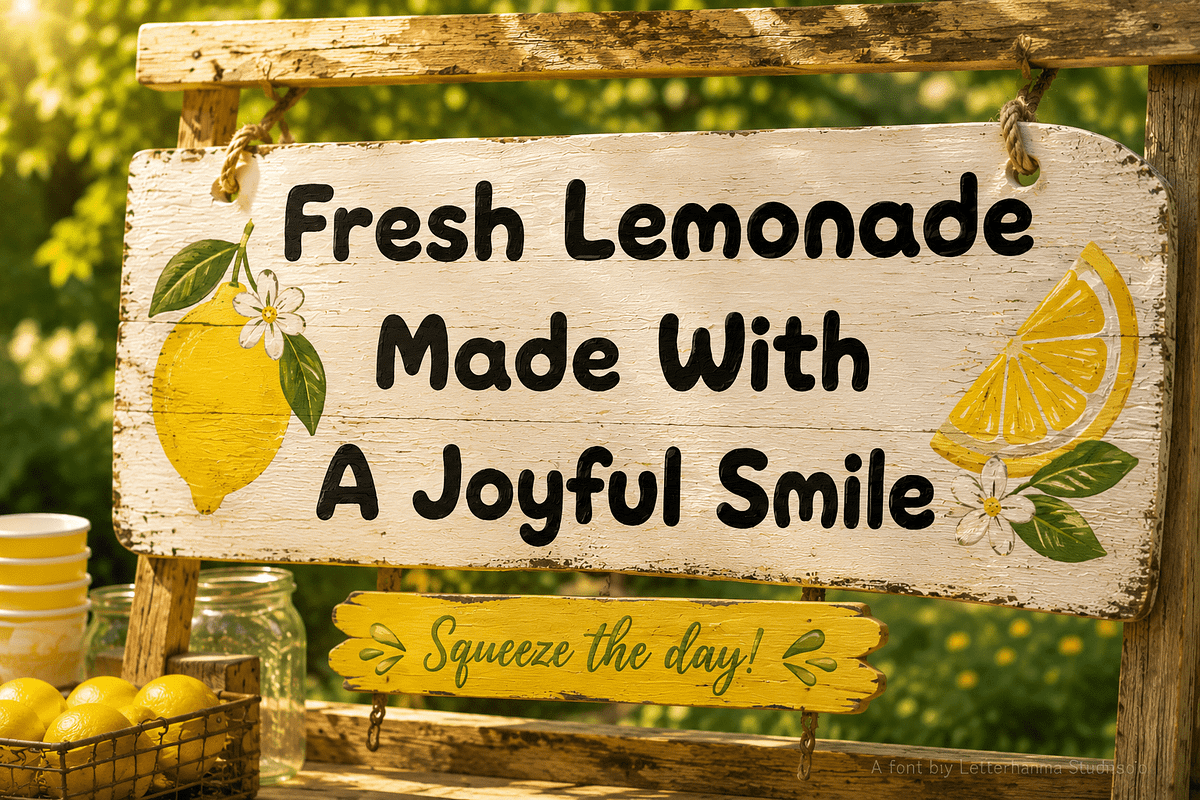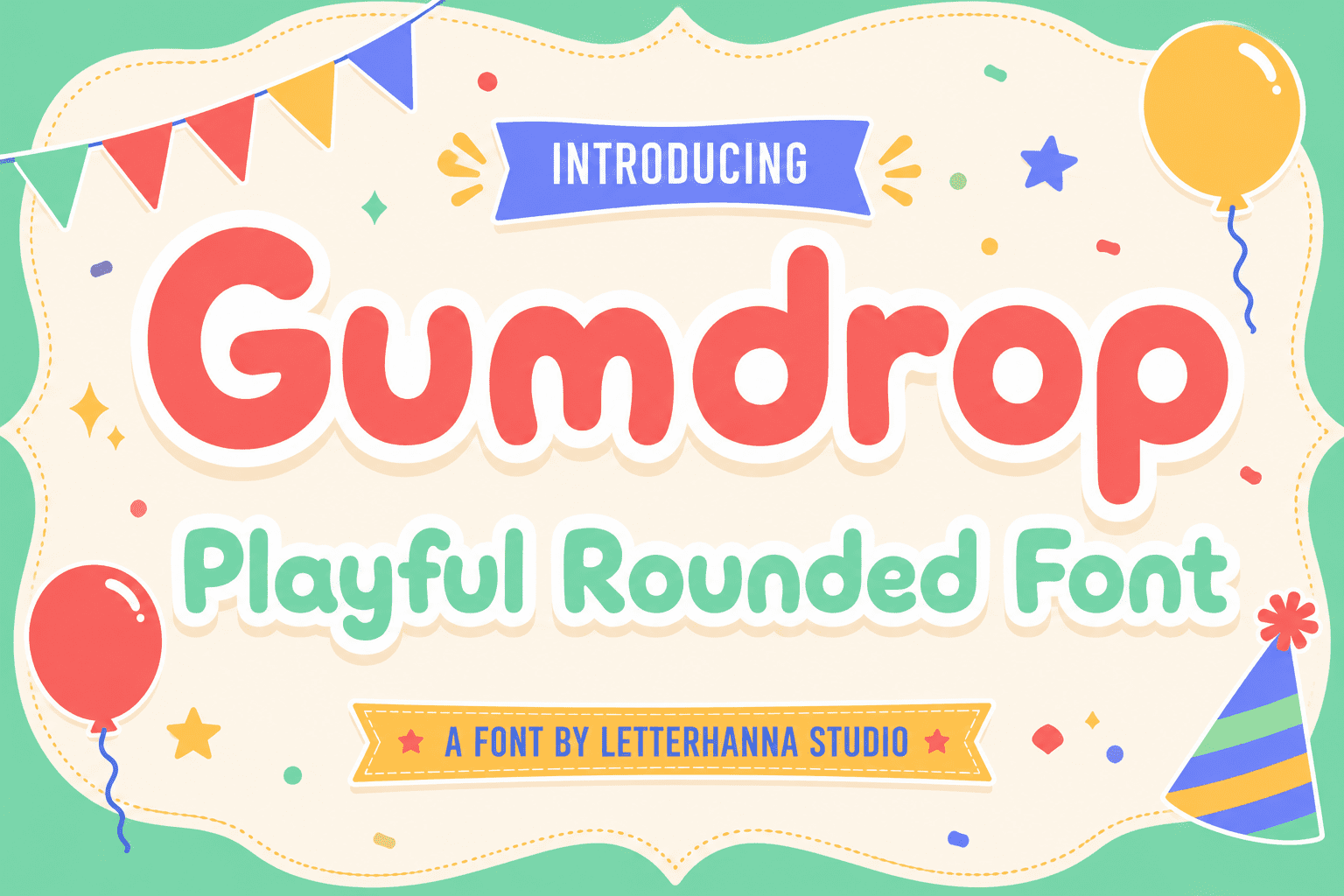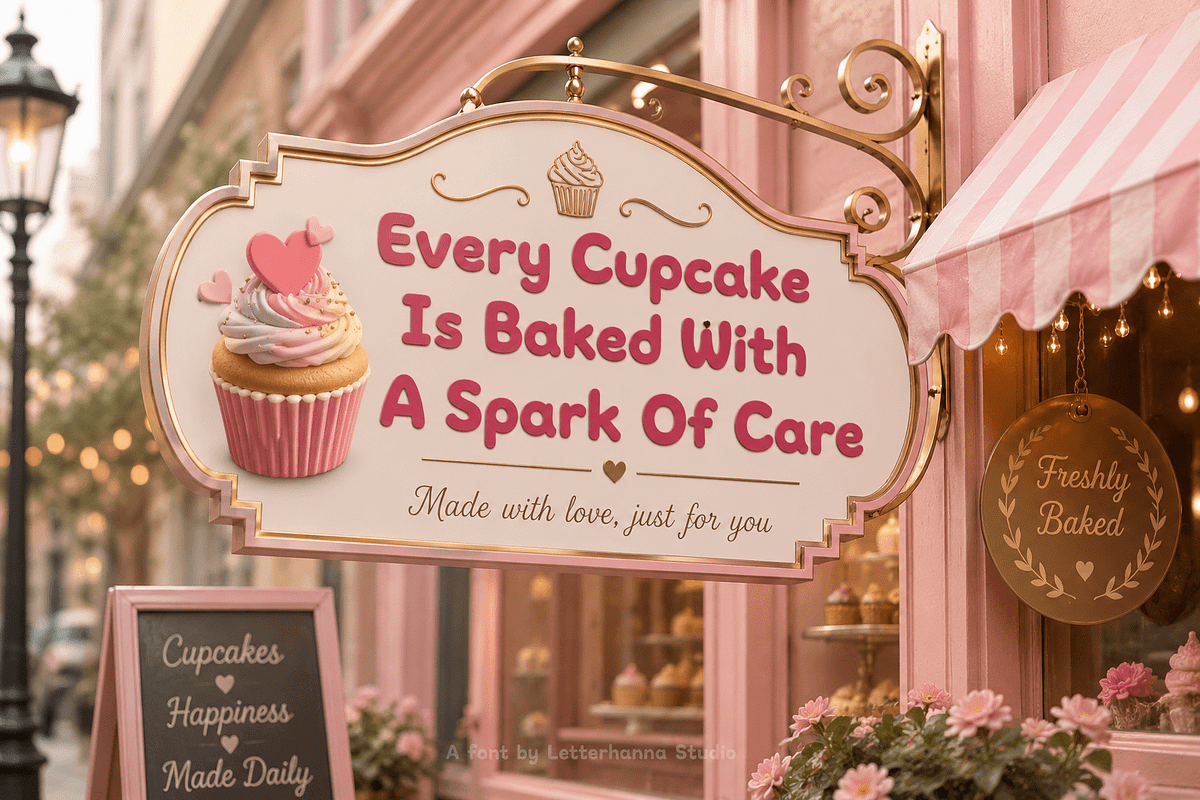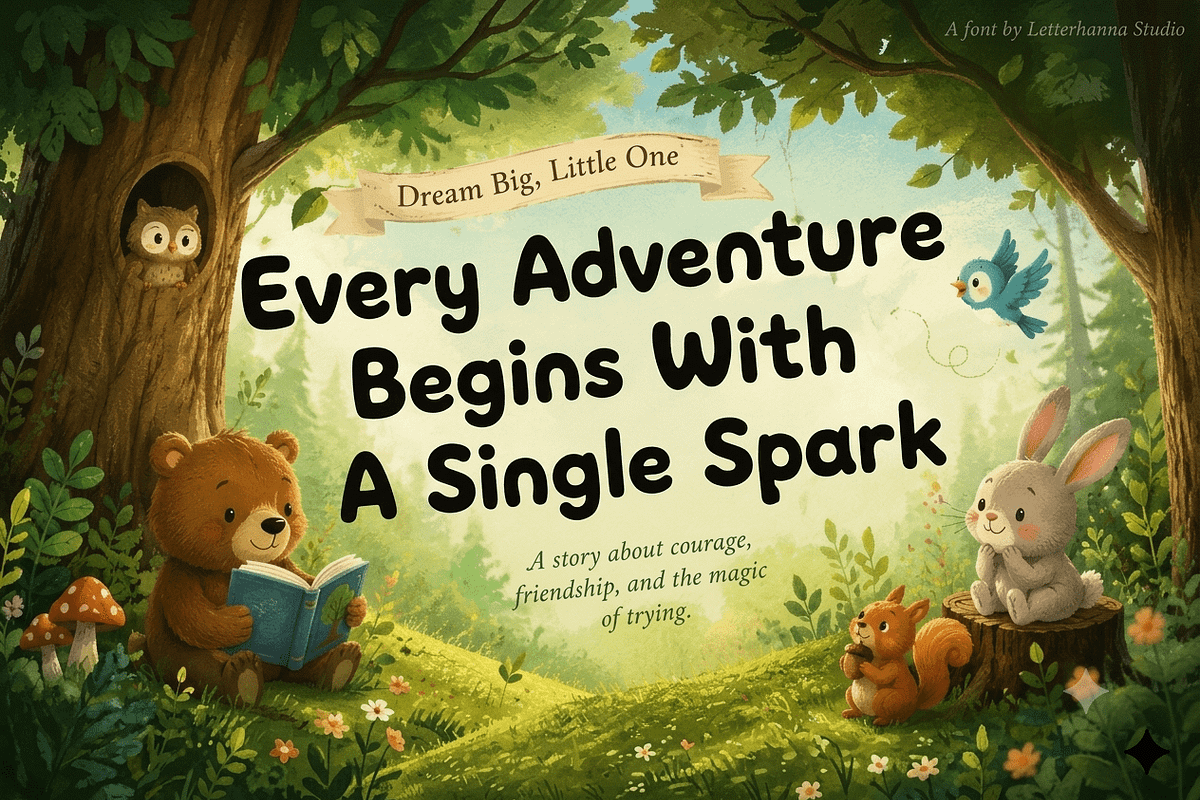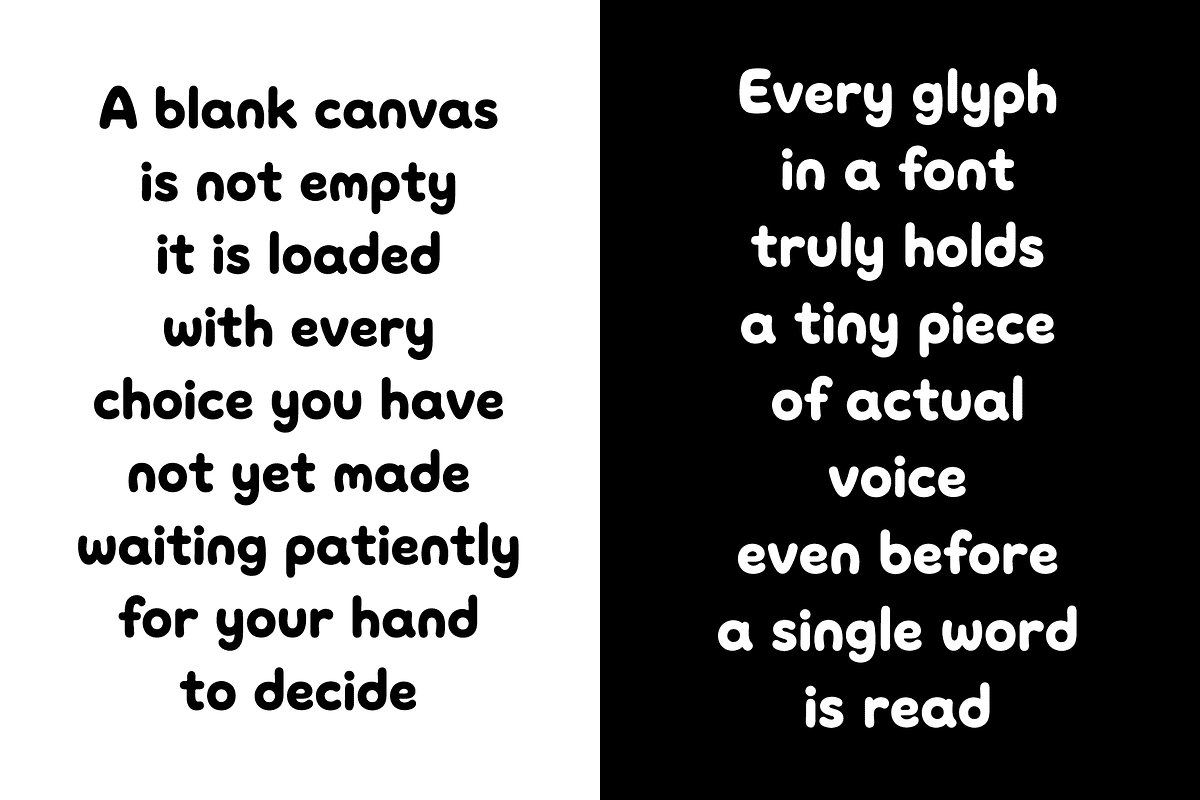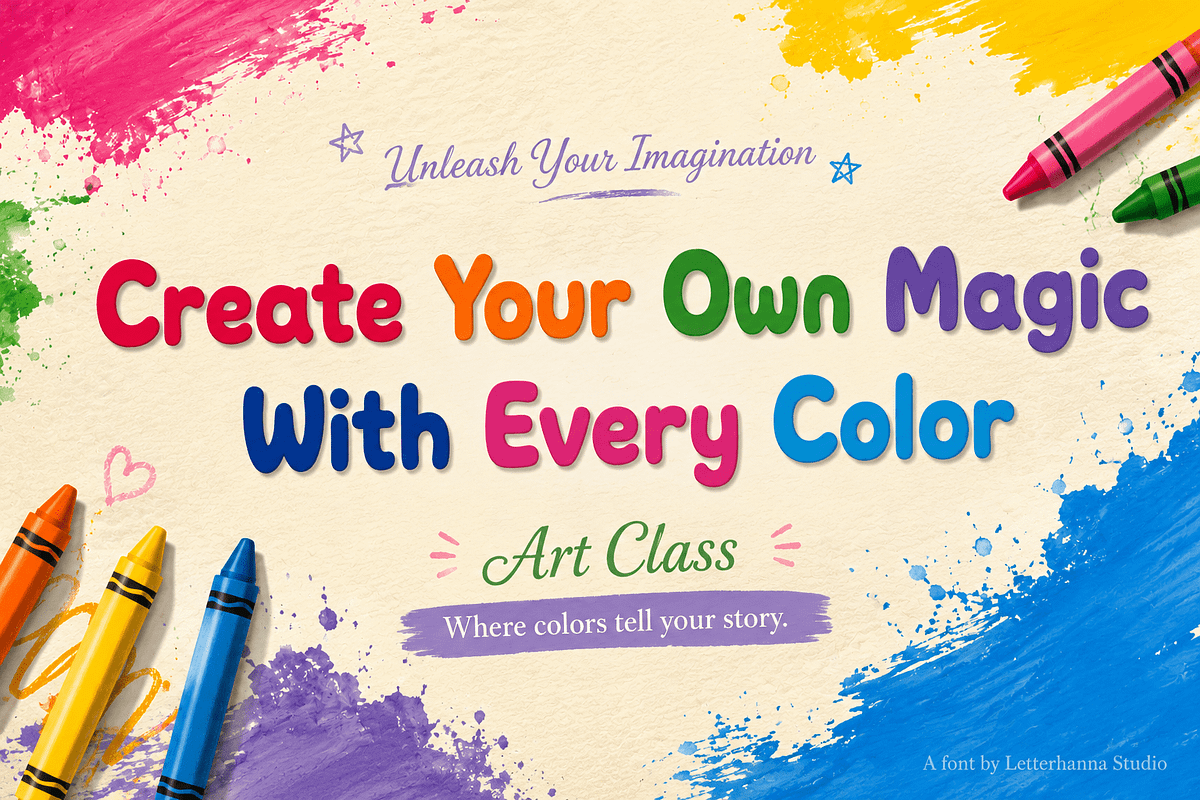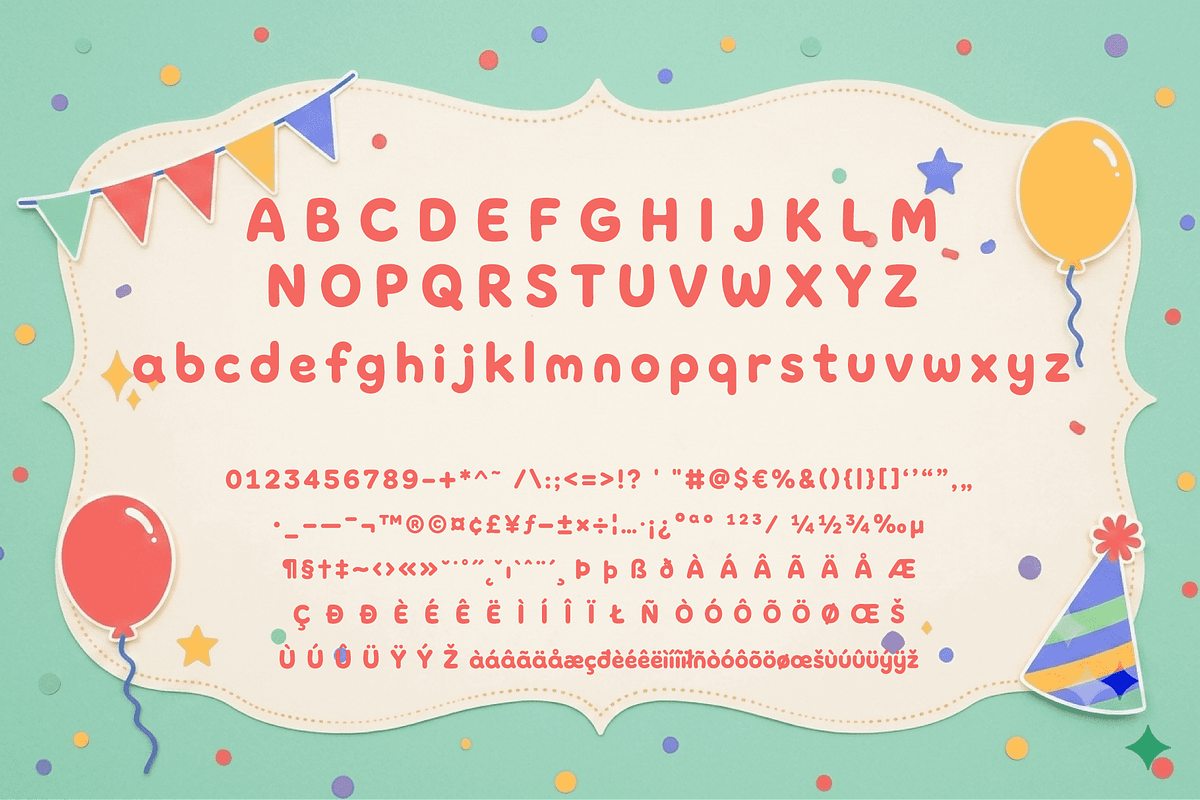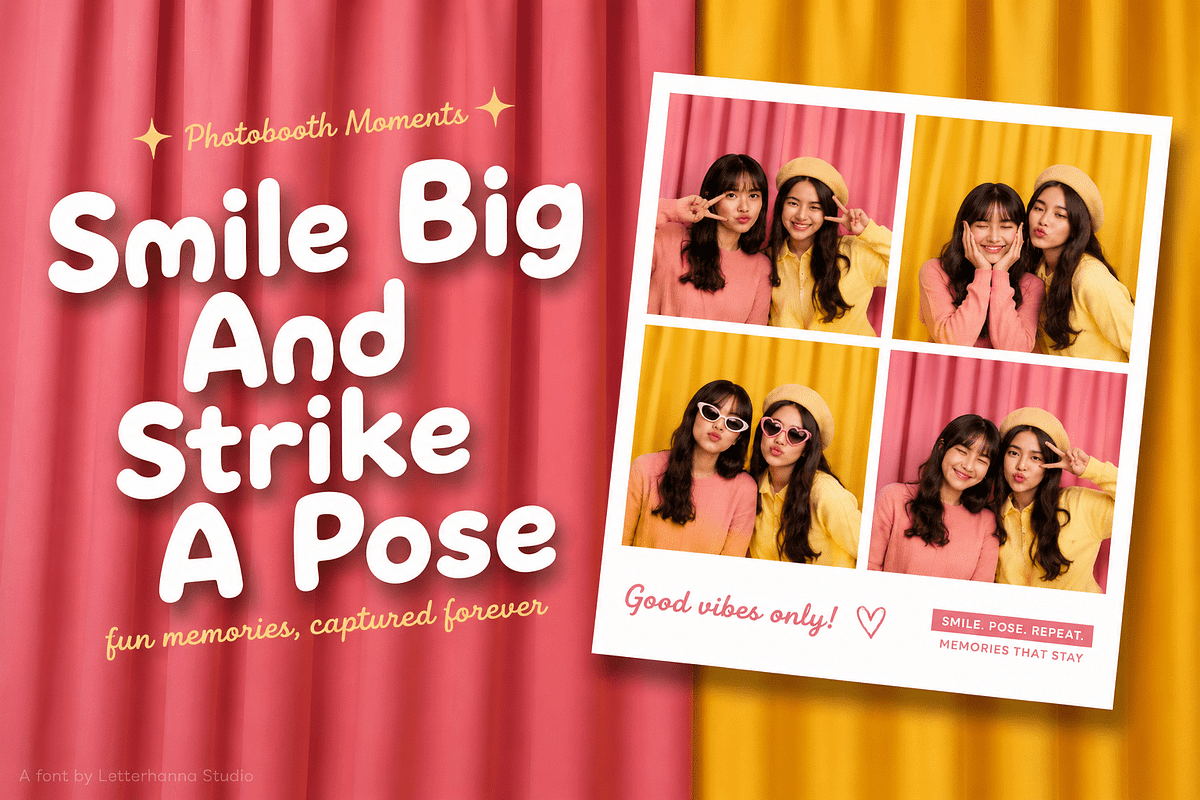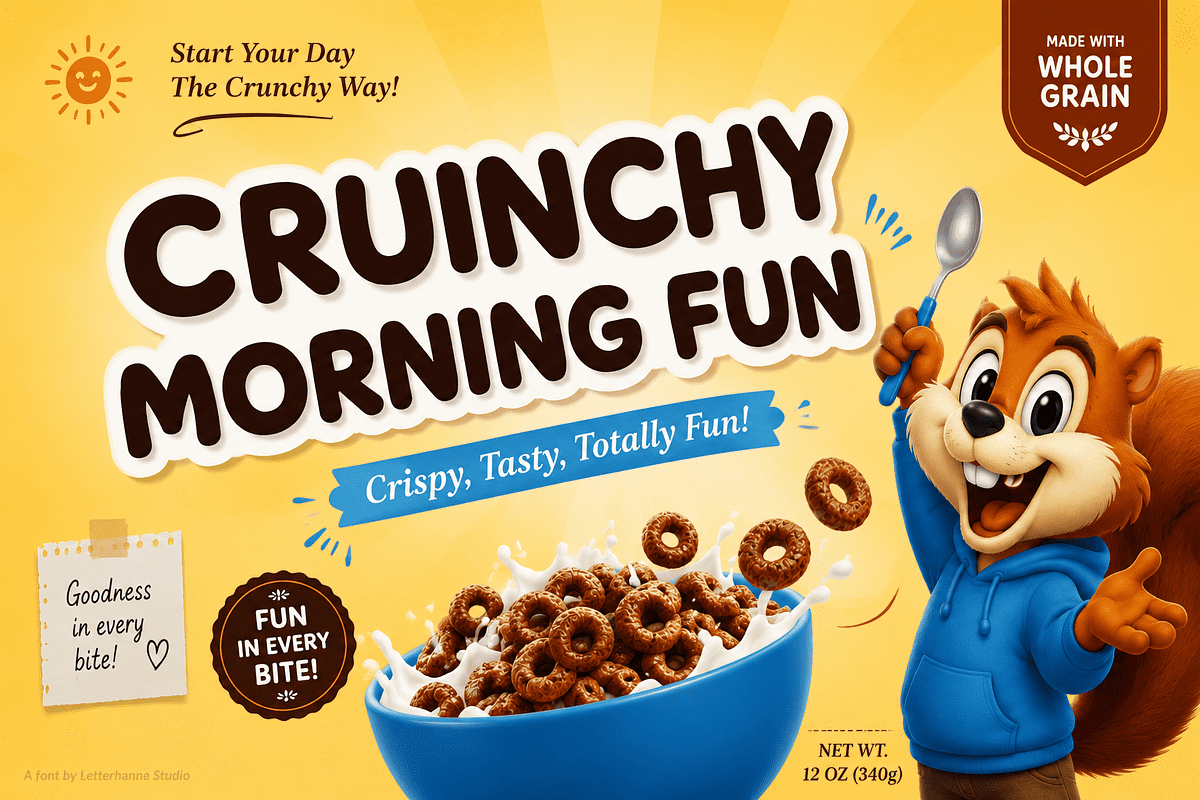
Gumdrop Font - Playful Rounded Font
Some fonts whisper, Gumdrop bounces in with a big, sugary grin. Built from thick, rounded strokes and soft, friendly curves, it has the chunky charm of letters made from candy dough, squished and shaped by happy little hands. Nothing about it feels stiff or serious; every curve is round, every corner is soft, every letter looks ready to roll across the page like a marble made of frosting and joy.
The detail that makes Gumdrop truly special is in the small touches: dotted i and j topped with plump round bubbles, a lowercase set that feels relaxed and cheerful, and an uppercase set that keeps the same bold, candy-like roundness. Together they create a typeface that feels handmade, joyful, and full of warmth, the kind of lettering a child might dream up while drawing on a bright, sunny afternoon.
Picture it on a kid's birthday card, wrapped around a candy jar label, sitting proudly on a playground sign, splashed across a children's app logo, or printed on a cereal box full of color and energy. Gumdrop fits anywhere a design needs to feel cheerful, sweet, and a little bit silly.